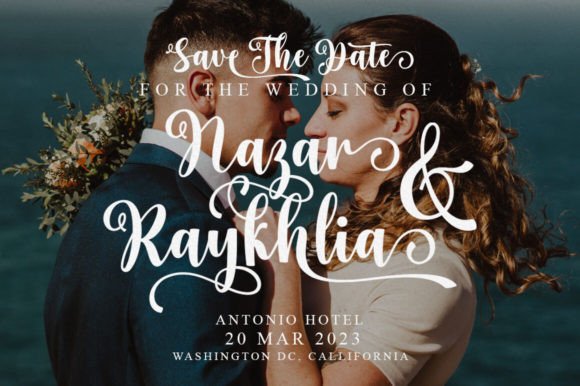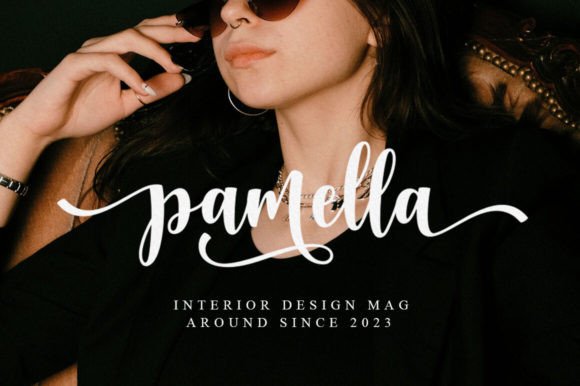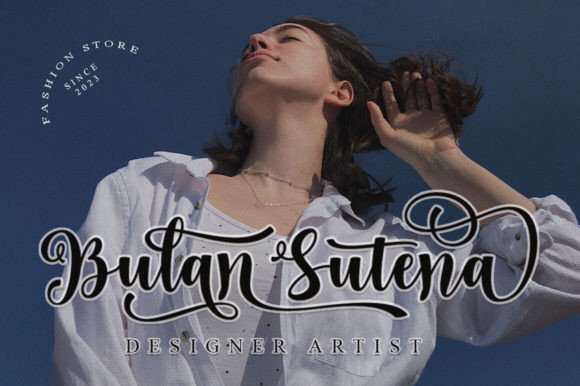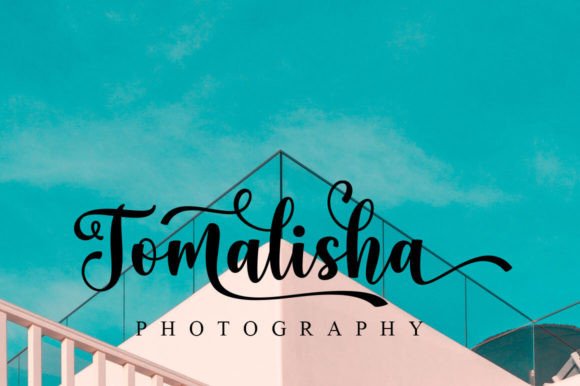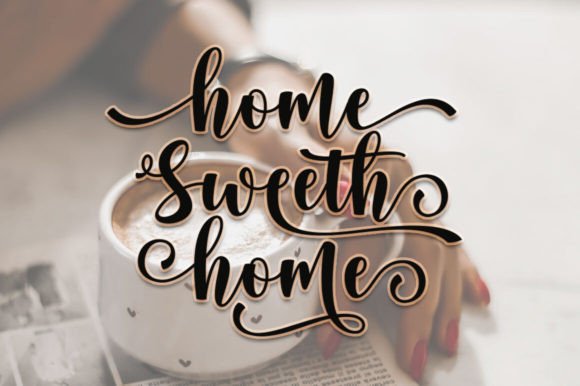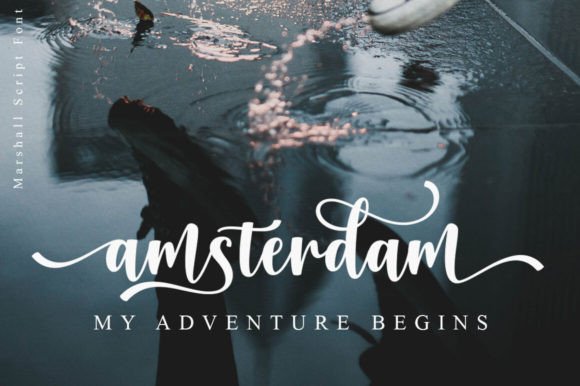
Discover the Charm of Fenivay Script Font
Have you ever been in the middle of a design project, and suddenly, you’re stuck on finding the perfect font? I recall a recent experience where I was working on a branding project for a boutique client, and I just couldn’t find a font that captured the essence of their elegant yet playful vibe. That’s when I stumbled upon Fenivay Script Font, and it completely transformed my design. In this article, I’ll share my journey with Fenivay Script, its unique features, and how you can make the most of it in your creative projects.
A Personal Review of Fenivay Script Font
What I Love About Fenivay Script ✨
- ✅ Unique Character: Fenivay Script has a lovely touch of character that makes it perfect for a variety of designs, from branding and packaging to social media graphics and invitations.
- ✅ Varied Baselines: The font features varied baselines that add a touch of elegance and sophistication to your text.
- ✅ Smooth Lines: The smooth lines in Fenivay Script give it a fluid, handwritten feel that’s both modern and classic.
- ✅ Stunning Alternatives: With a range of alternatives and stylistic alternates, you can easily experiment with different looks and find the perfect fit for your project.
While Fenivay Script is an amazing font, there are a few things to keep in mind:
- ⚠️ Legibility at Small Sizes: Like many script fonts, Fenivay Script can be a bit tricky to read at very small sizes. It’s best used at larger sizes where its unique features can shine.
- ⚠️ Pairing with Other Fonts: As with any script font, pairing Fenivay Script with other fonts can be a bit challenging. You’ll want to choose fonts that complement its elegant, cursive feel.
The Story Behind Fenivay Script
Fenivay Script was designed with the intention of creating a font that captures the elegance and sophistication of handwritten script, while still being modern and versatile. The designer aimed to create a font that would be perfect for a variety of creative projects, from branding and packaging to social media graphics and invitations.
Q: What makes Fenivay Script unique?
A: Fenivay Script’s unique features include its varied baselines, smooth lines, and stunning alternatives, making it perfect for a variety of designs.
Q: Is Fenivay Script difficult to read?
A: Like many script fonts, Fenivay Script can be a bit tricky to read at very small sizes. It’s best used at larger sizes where its unique features can shine.